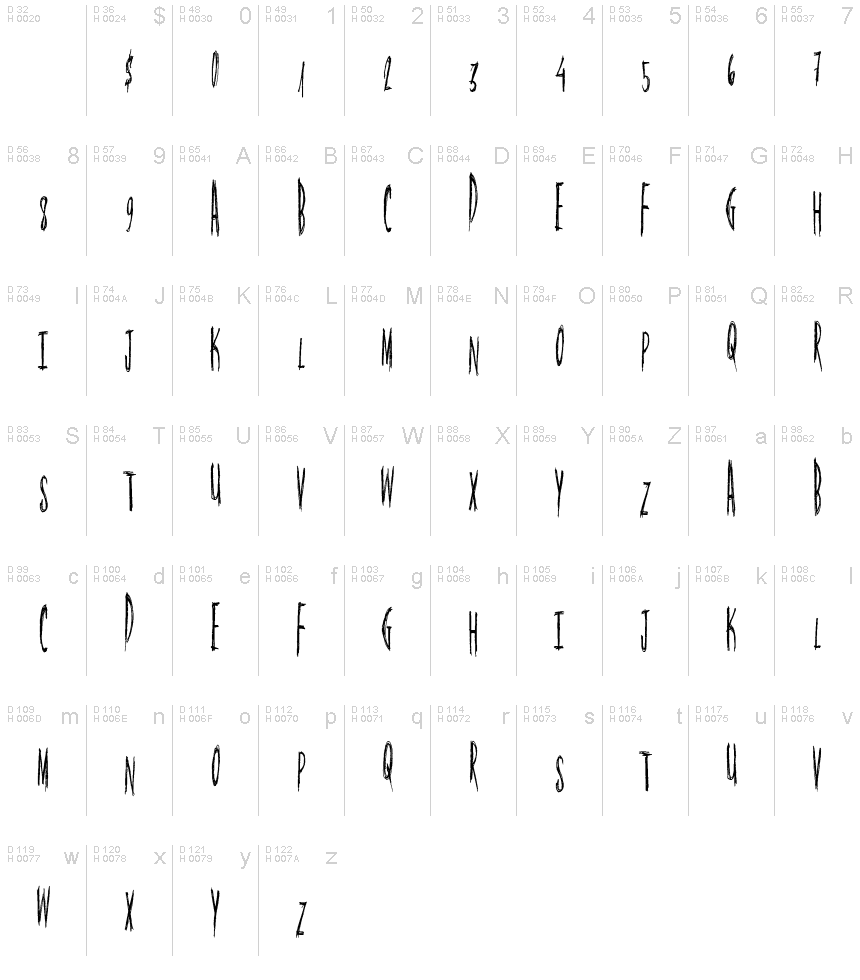
MagicalSpringtime
Magical Springtime by Max Infeld - Xerographer Fonts is a captivating display font that effortlessly blends the whimsical and the eerie. Its spindly, condensed script evokes a sense of otherworldly enchantment, with each letter seemingly crafted by the ghostly touch of an unseen hand. The font's haunting yet alluring aesthetic makes it a versatile choice for projects seeking to cultivate an atmosphere of mystery and intrigue, whether in the realm of horror, fantasy, or avant-garde design.
Magical Springtime's unique character and dramatic flair lend themselves particularly well to display applications, such as poster designs, album covers, and event branding. Its condensed nature allows for impactful, eye-catching text, while the script's underlying unsettling quality adds an element of tension and depth to any visual narrative.